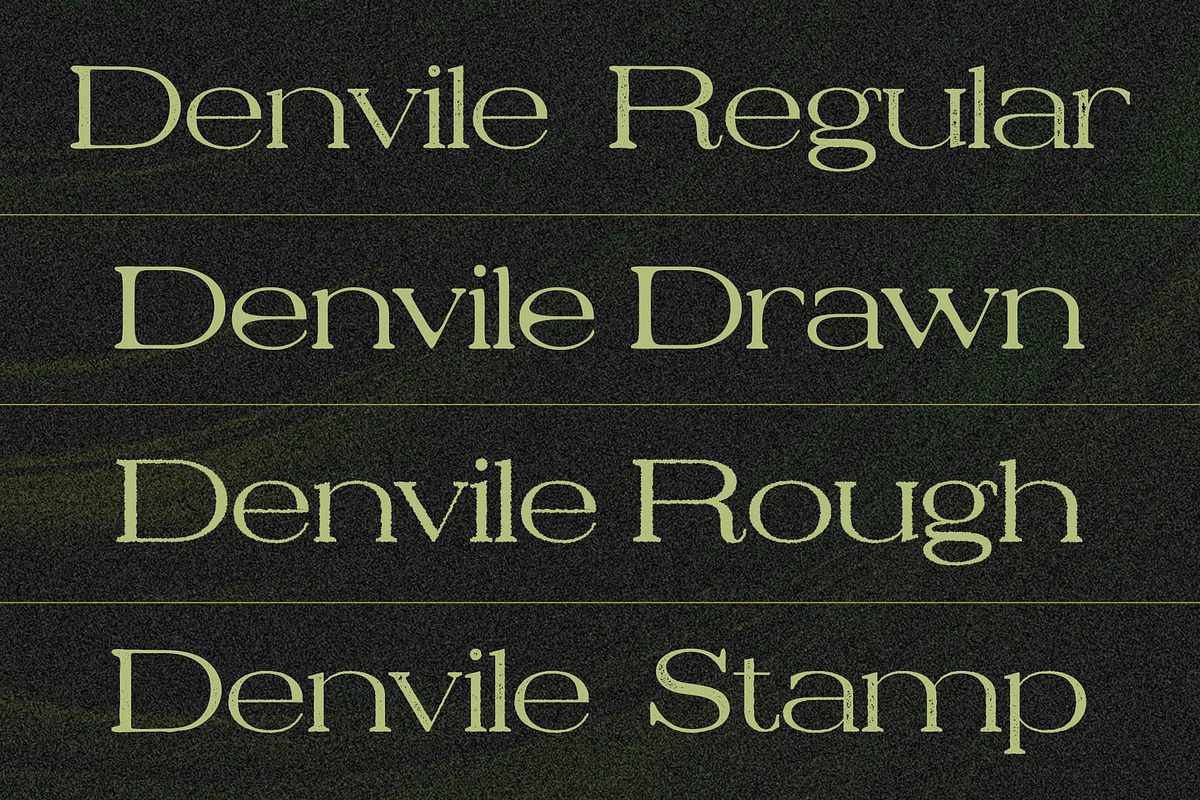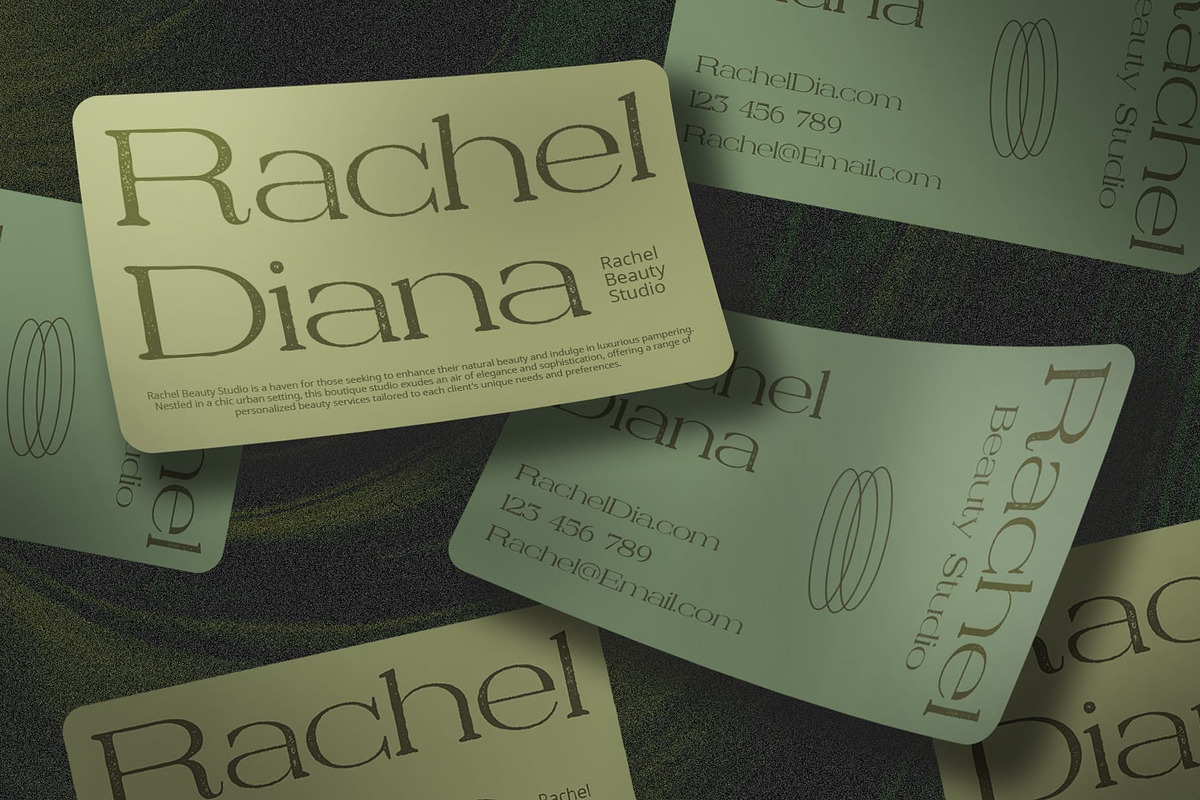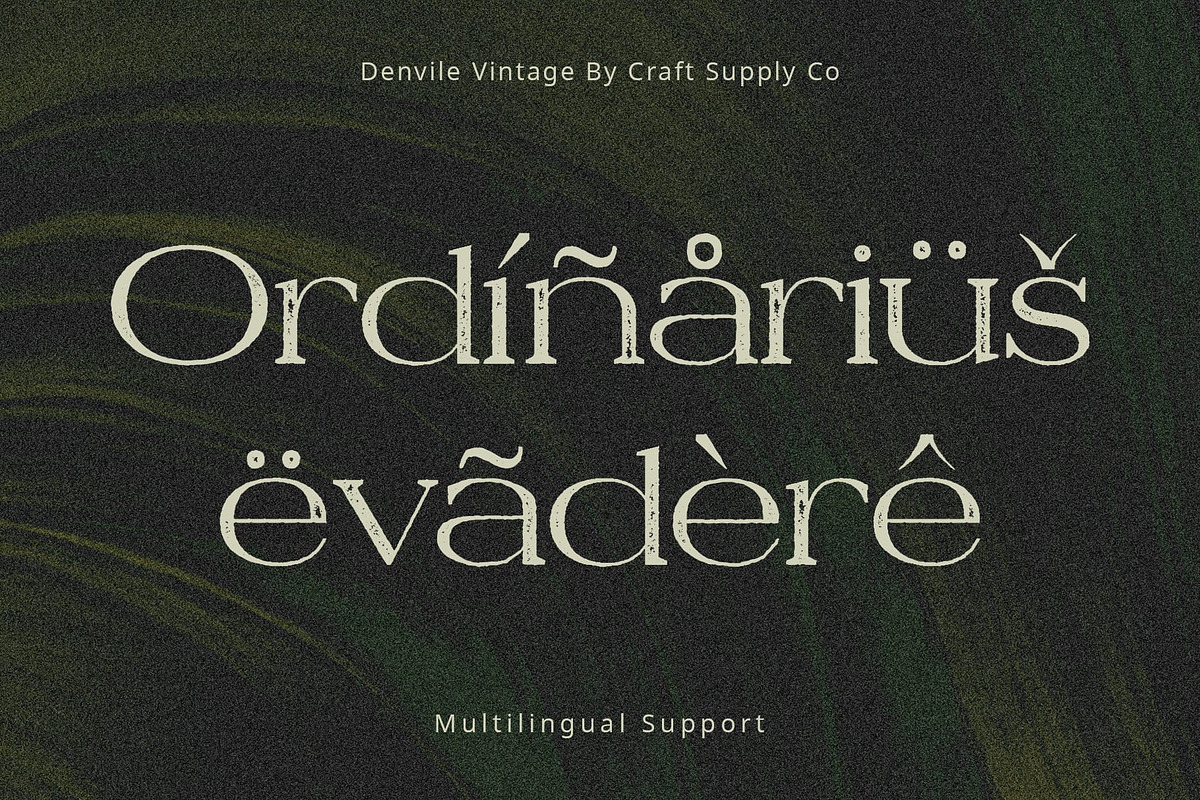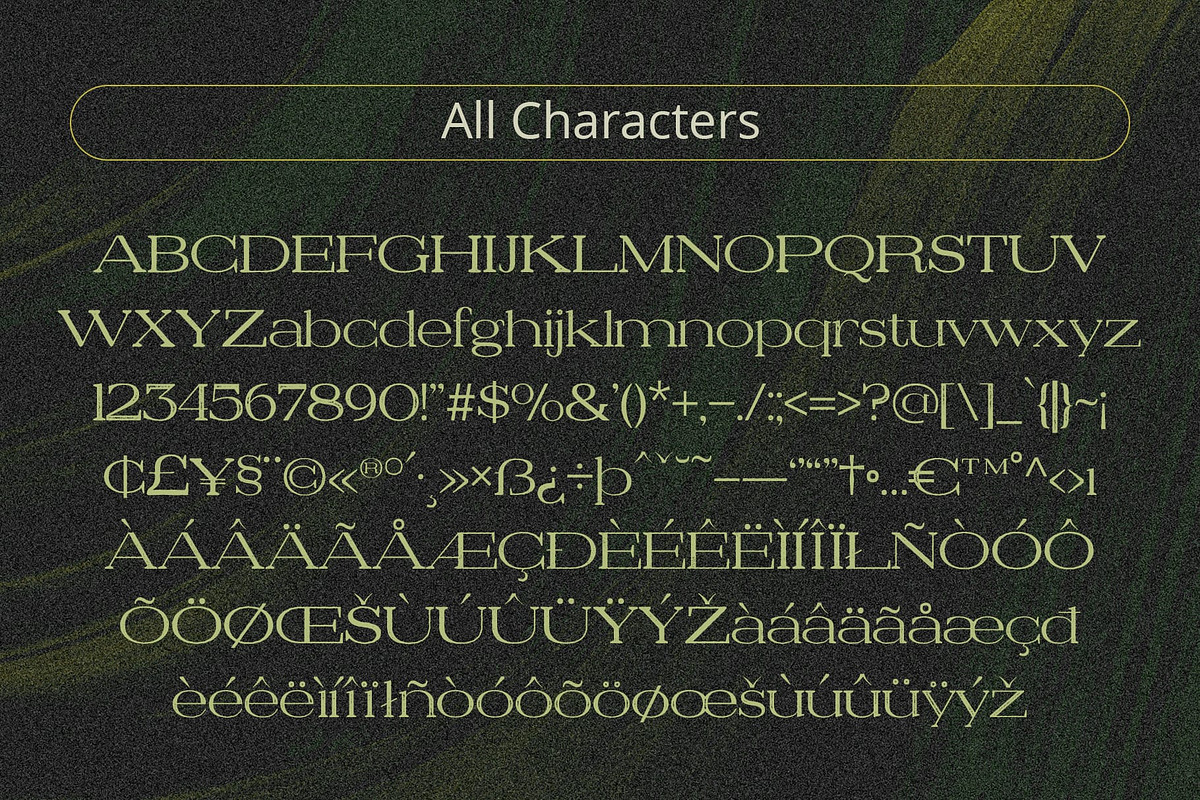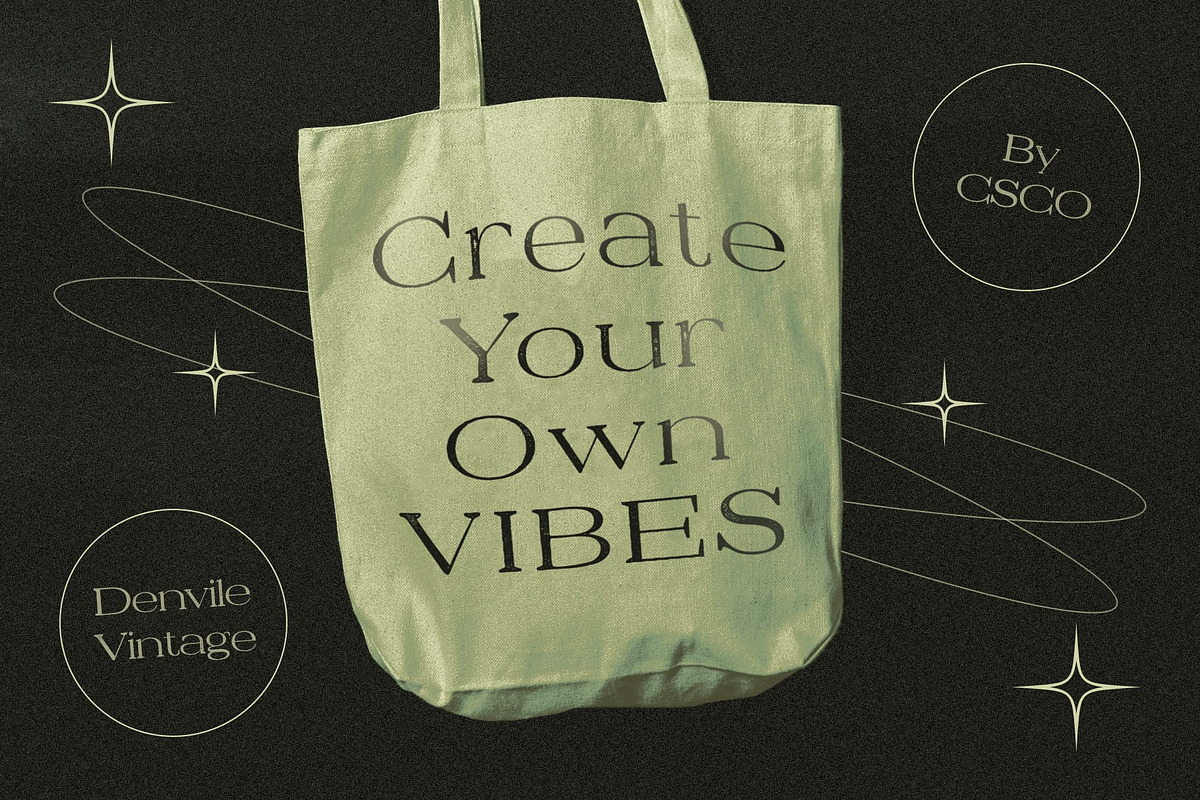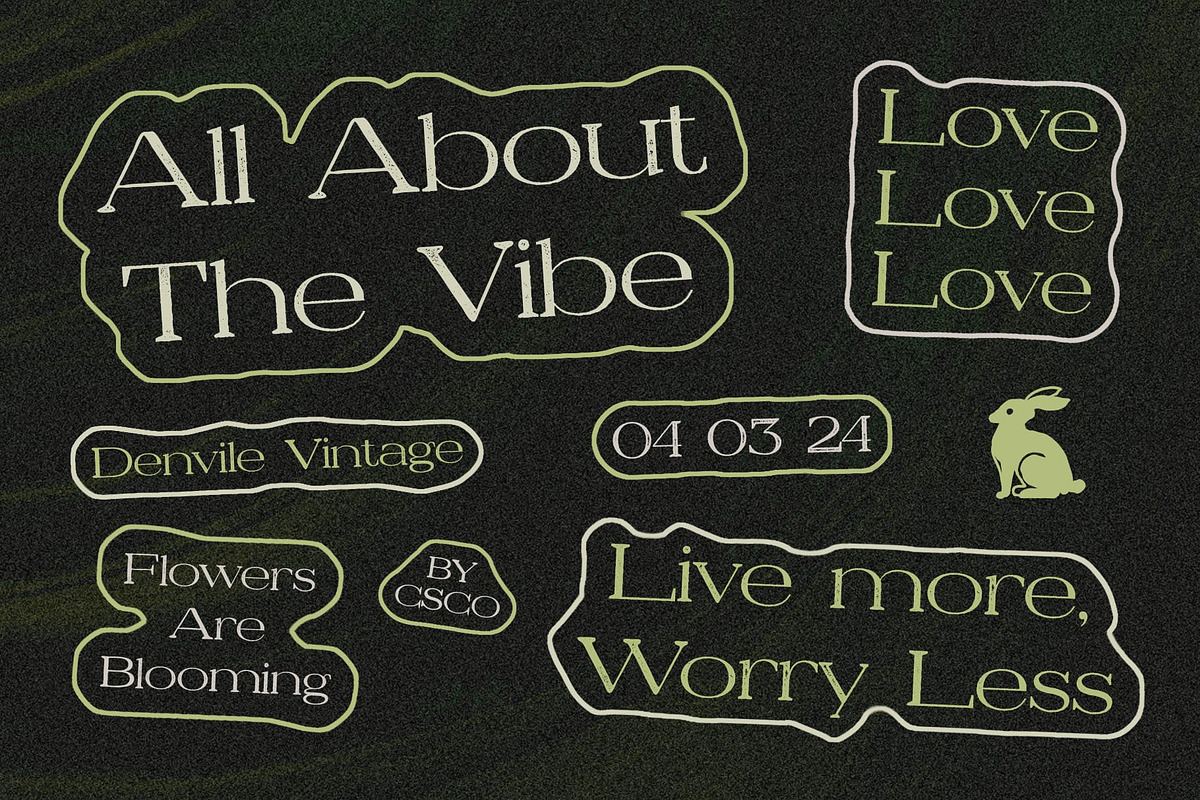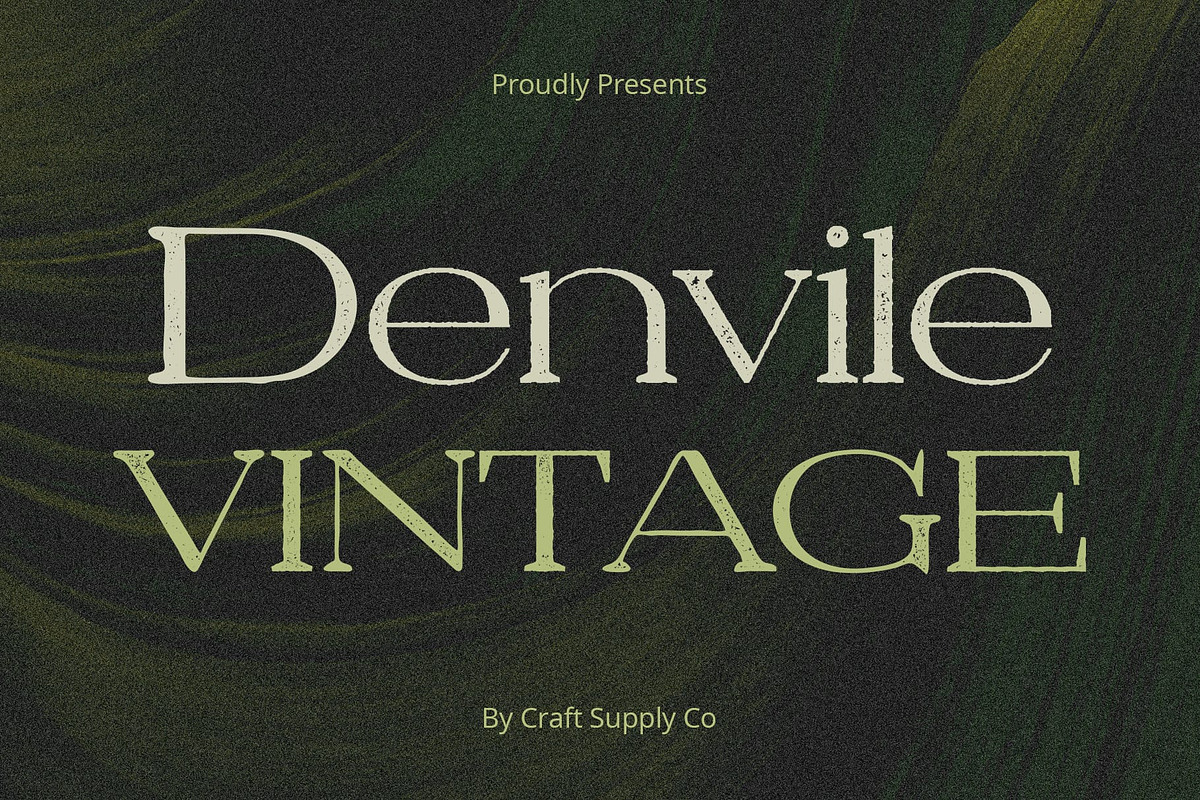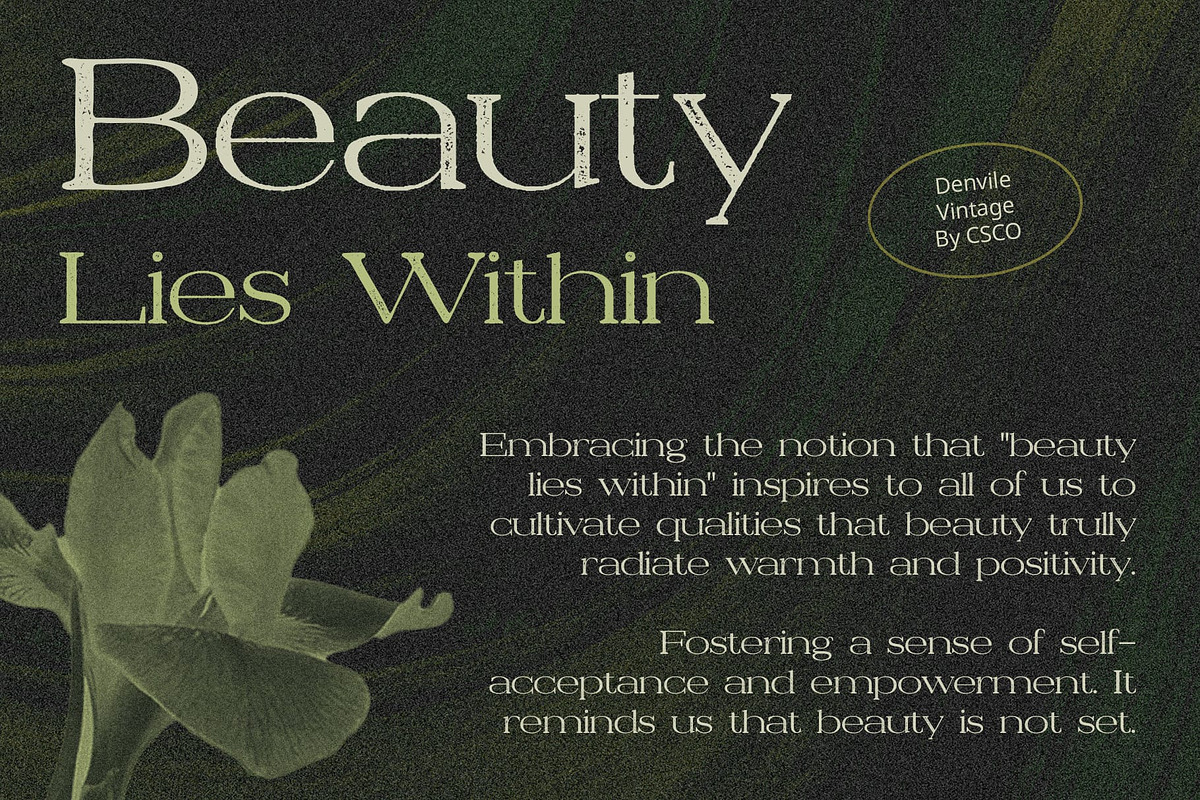
Denvile Vintage
Denvile Vintage: Vintage Charm in Every Letter
Moderate Contrast Serif Denvile Vintage boasts a moderate contrast serif design, striking a balance between elegance and readability. Its well-defined serifs add a touch of sophistication to each character.
Rough Stamp Drawn Effect With a rough stamp drawn effect, This font exudes a rustic and weathered appearance reminiscent of vintage typography. Each letter carries a sense of history and authenticity.
Embracing Vintage Aesthetics The font embraces vintage aesthetics with its moderate contrast serif design and rough stamp drawn effect. It transports viewers to a bygone era, evoking feelings of nostalgia and charm.
Versatile Application Despite its vintage-inspired appearance, This font is versatile in its application. Whether used for branding, editorial design, or signage, it adds a touch of vintage elegance to any project.
Timeless Elegance with Vintage Flair This font combines classic serif design with a rustic, vintage-inspired twist. Its moderate contrast serif and rough stamp drawn effect make it the perfect choice for designers seeking to infuse their projects with a hint of nostalgic charm. Let Denvile Vintage add a touch of vintage elegance to your designs and transport your audience to a bygone era.
- Denvile Regular
- Denvile Drawn
- Denvile Rough
- Denvile Stamp